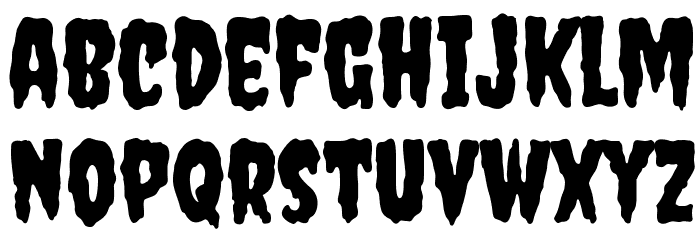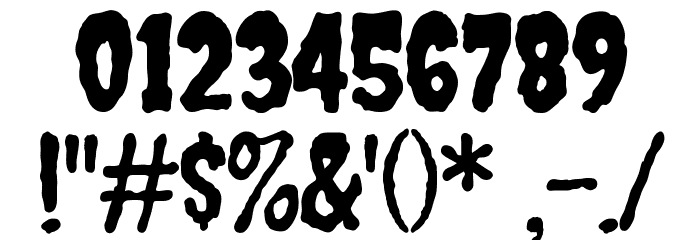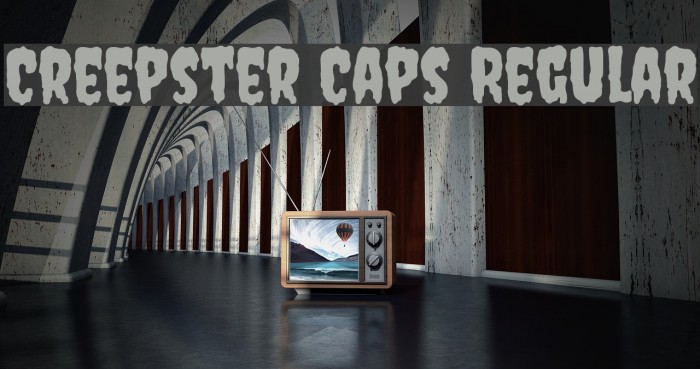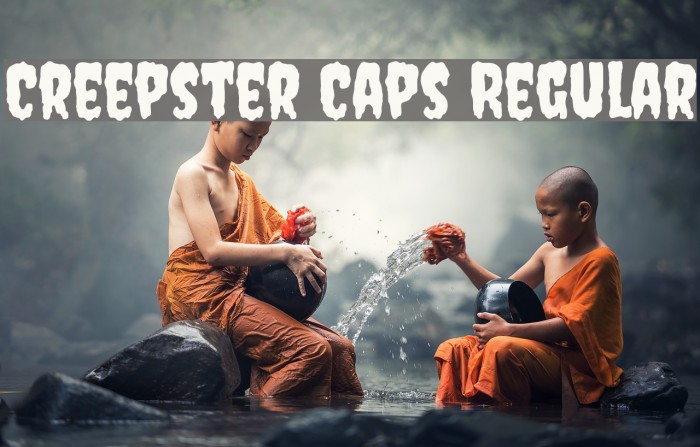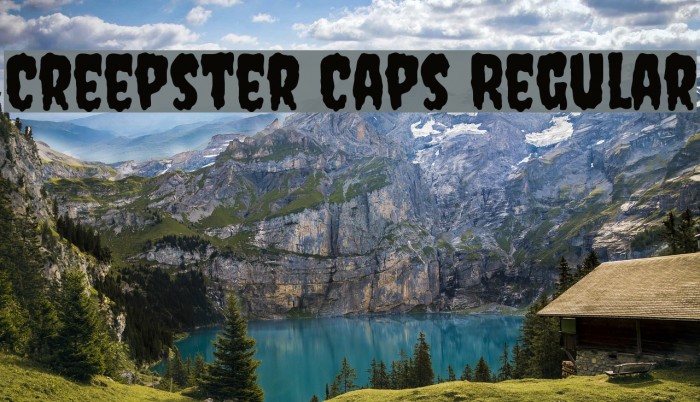
Creepster Caps Regular Font
This font features a bold and playful design with a spooky, horror-themed aesthetic. The characters have an irregular, jagged outline that gives them a dripping or melting appearance, reminiscent of classic horror movie posters. The uppercase and lowercase letters maintain a consistent style, with exaggerated curves and uneven edges that add to the eerie vibe. Numbers and special characters follow the same design principles, ensuring a cohesive look across all glyphs. The font's unique style makes it perfect for Halloween-themed projects or any design that requires a touch of the macabre.
A bold, horror-themed font with a dripping, irregular design.
- Proposed Projects: Ideal for Halloween invitations, horror movie posters, themed party decorations, and spooky merchandise designs.